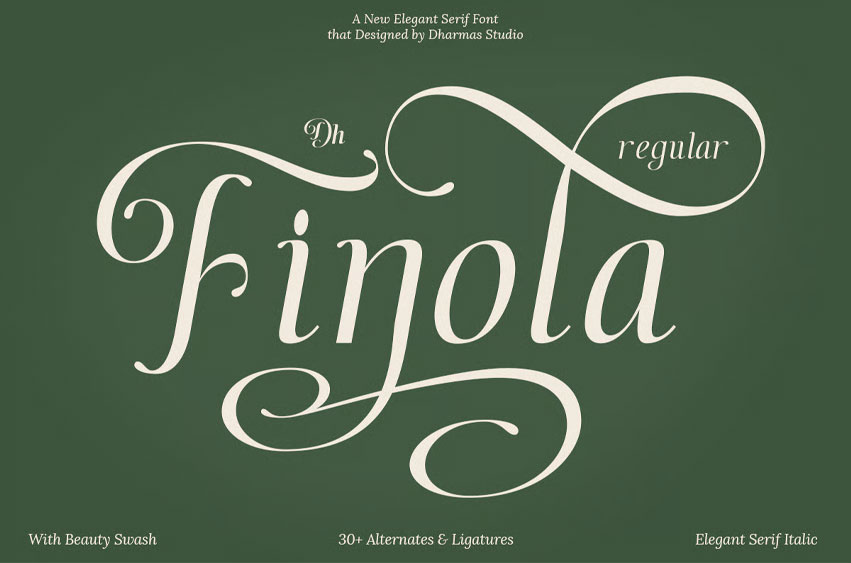
Dh Finola Regular Font is a refined serif font crafted for editorial elegance and timeless sophistication. Inspired by classic type traditions and modern magazine layouts, this weight balances decorative beauty with readability, making it ideal for articles, book covers, and refined logo design.
Its graceful strokes, flowing curves, and thoughtfully designed ligatures bring charm to headlines or body text. Finola Regular is both expressive and highly usable, offering a polished feel that elevates any visual concept with grace and style.
- 1 Weight: Regular
- 30+ Swash Alternates and Ligatures
- Letters, numbers, symbols, punctuation, special alternates